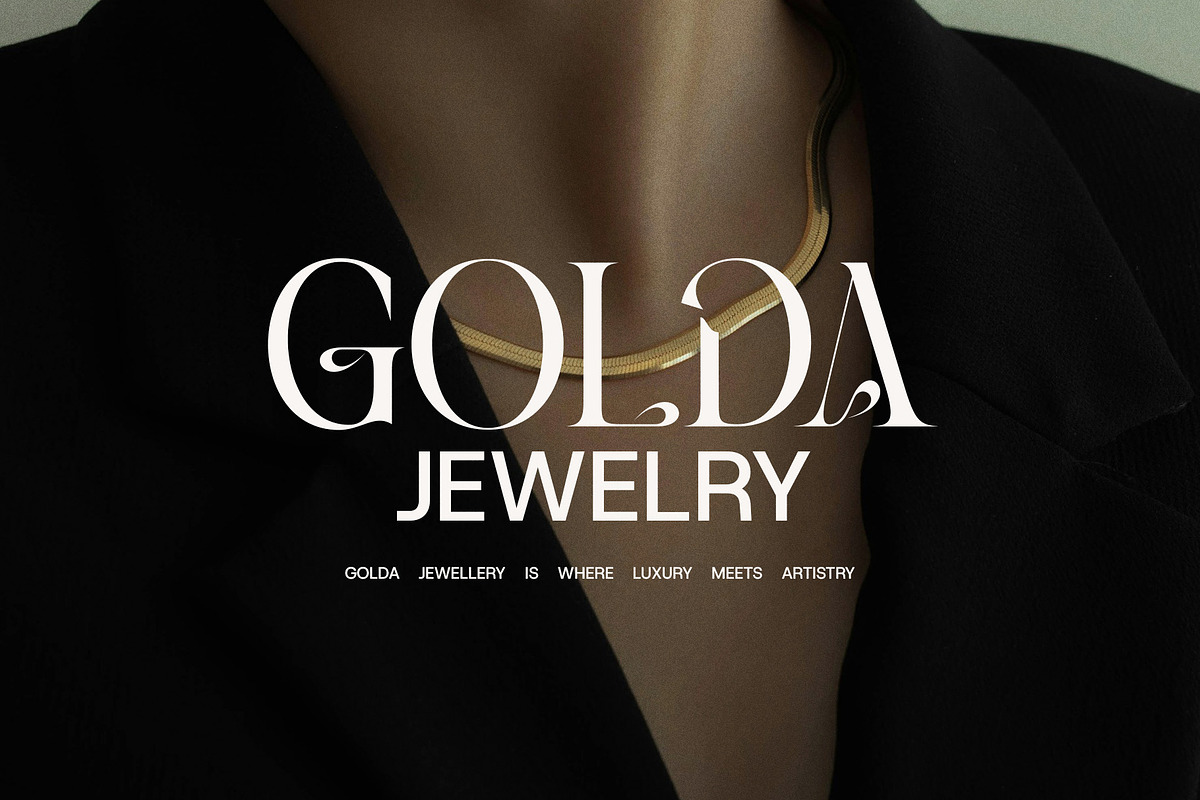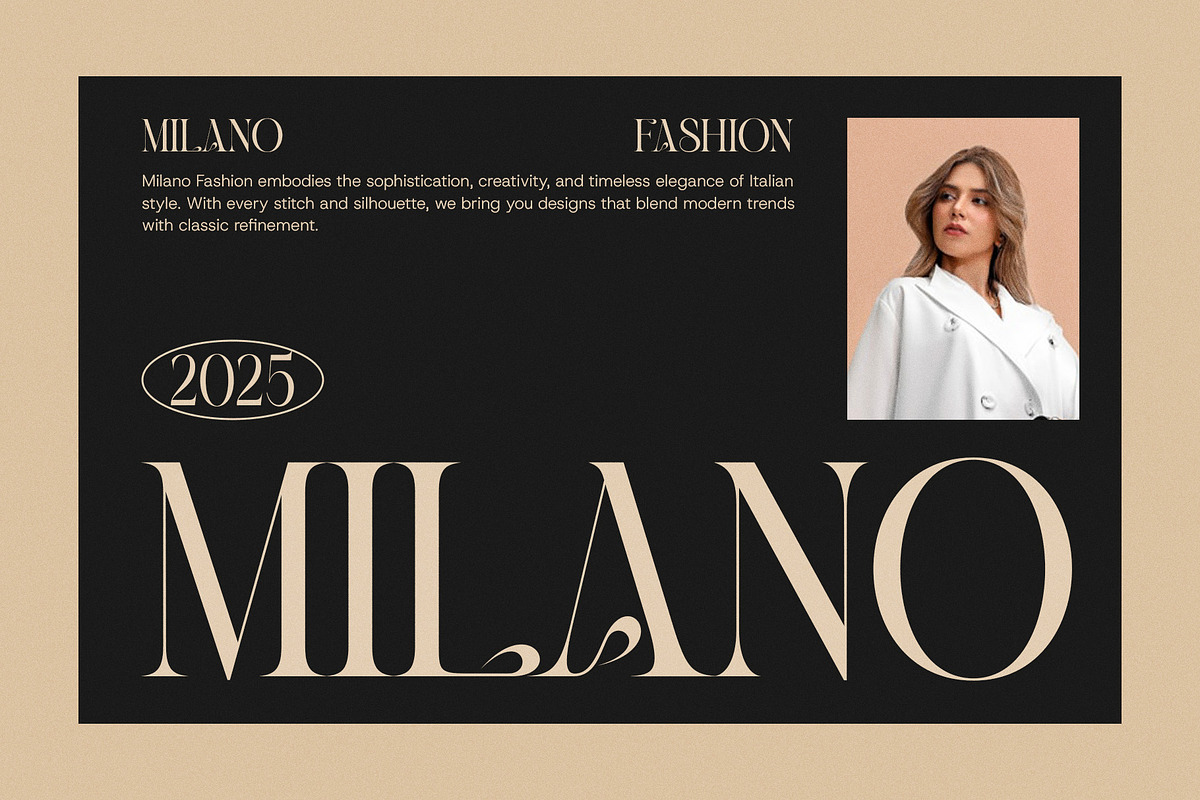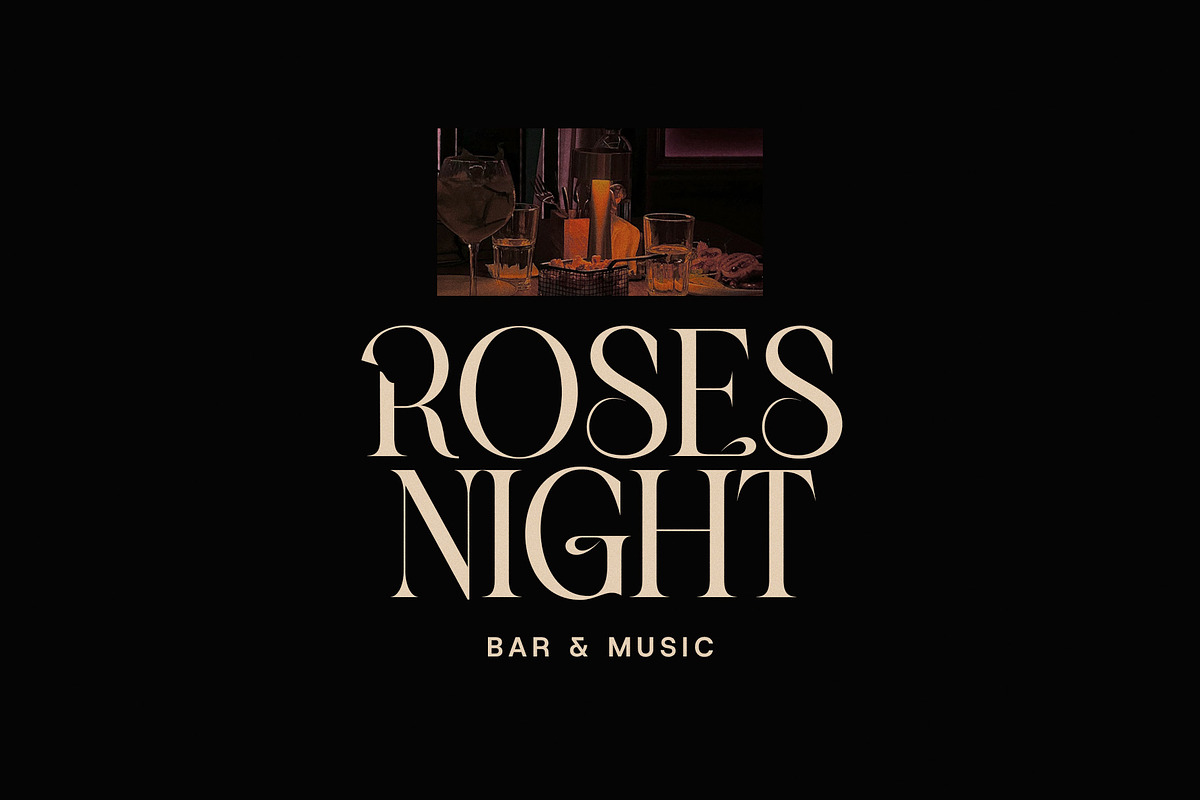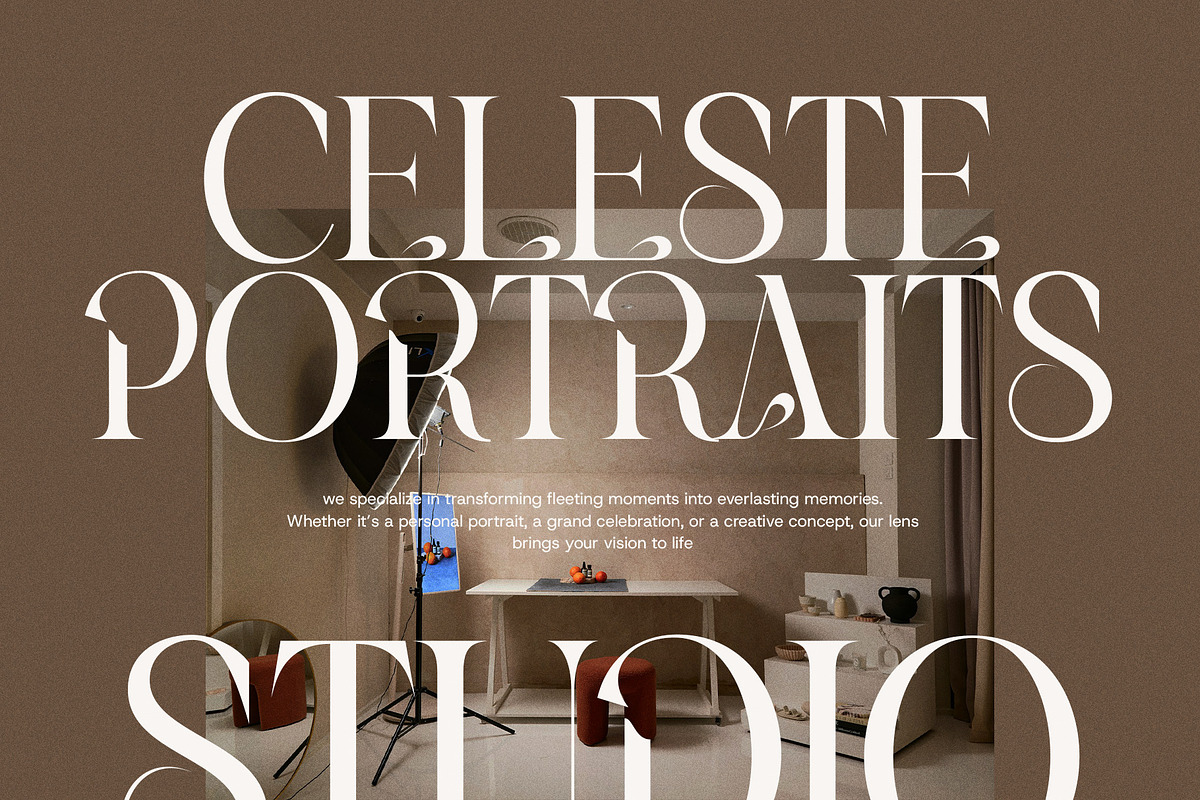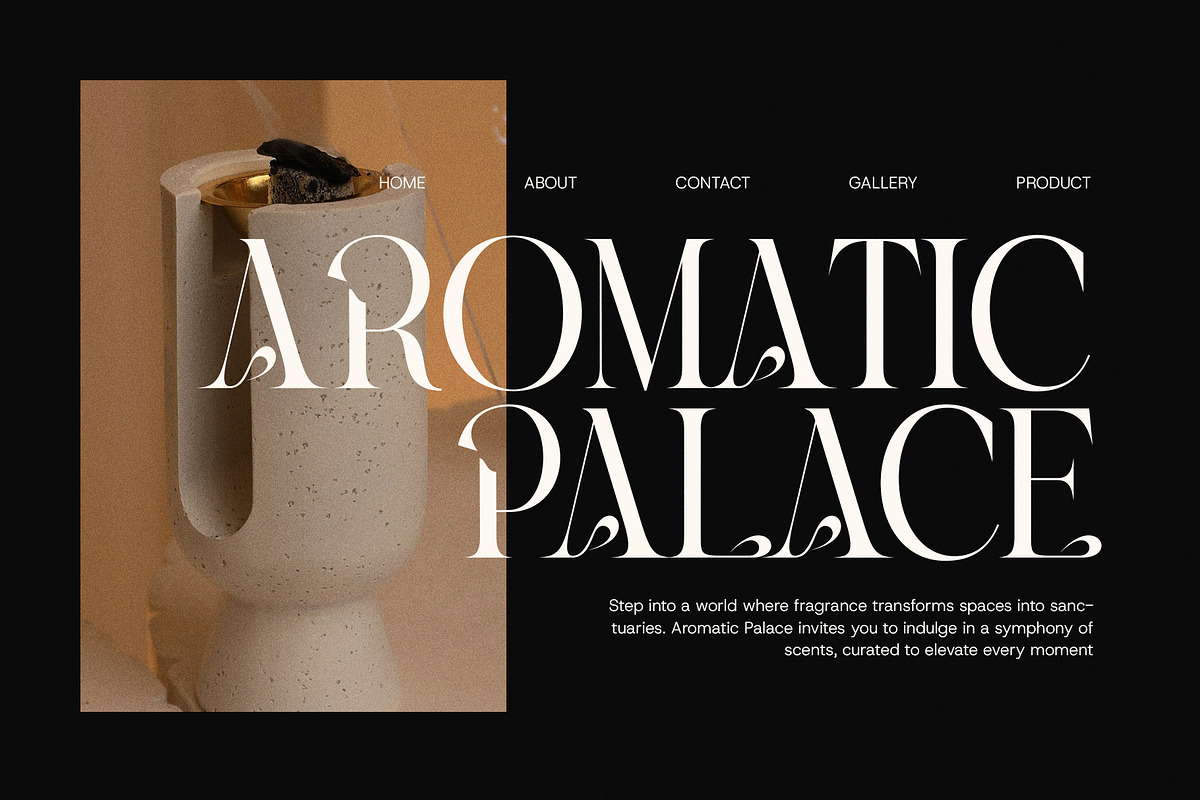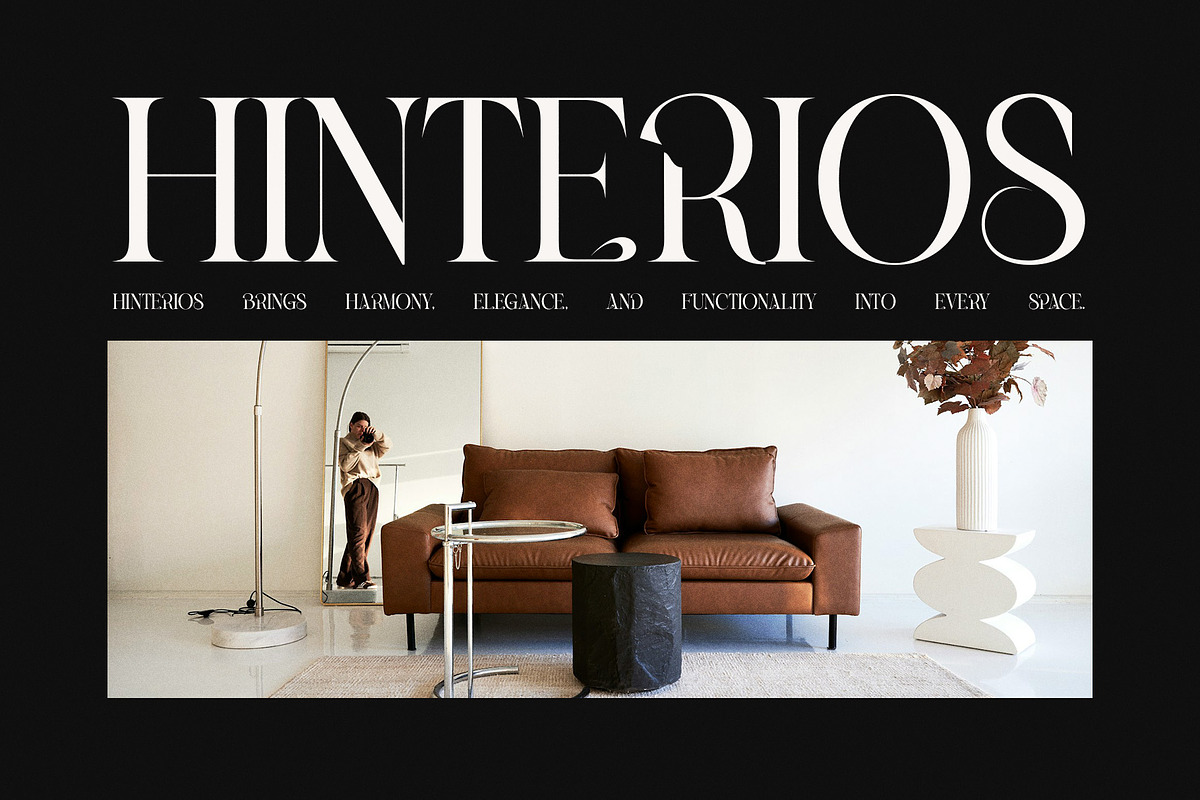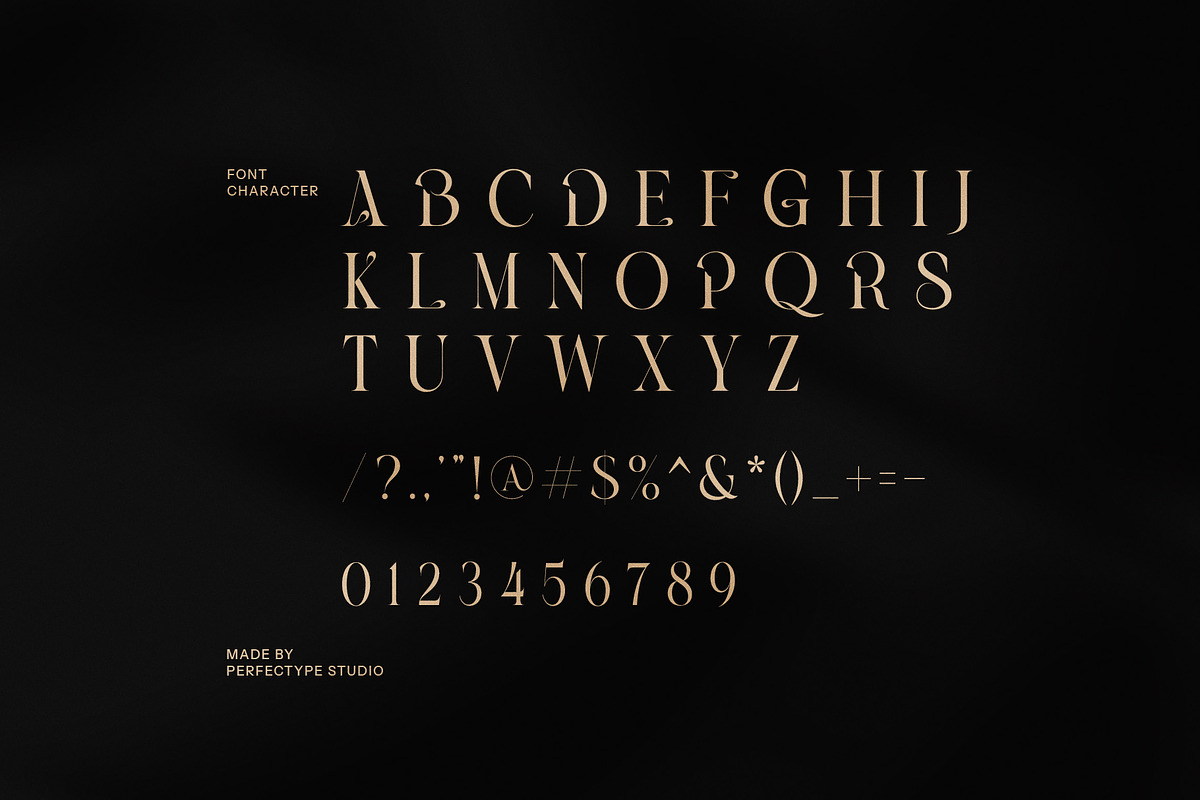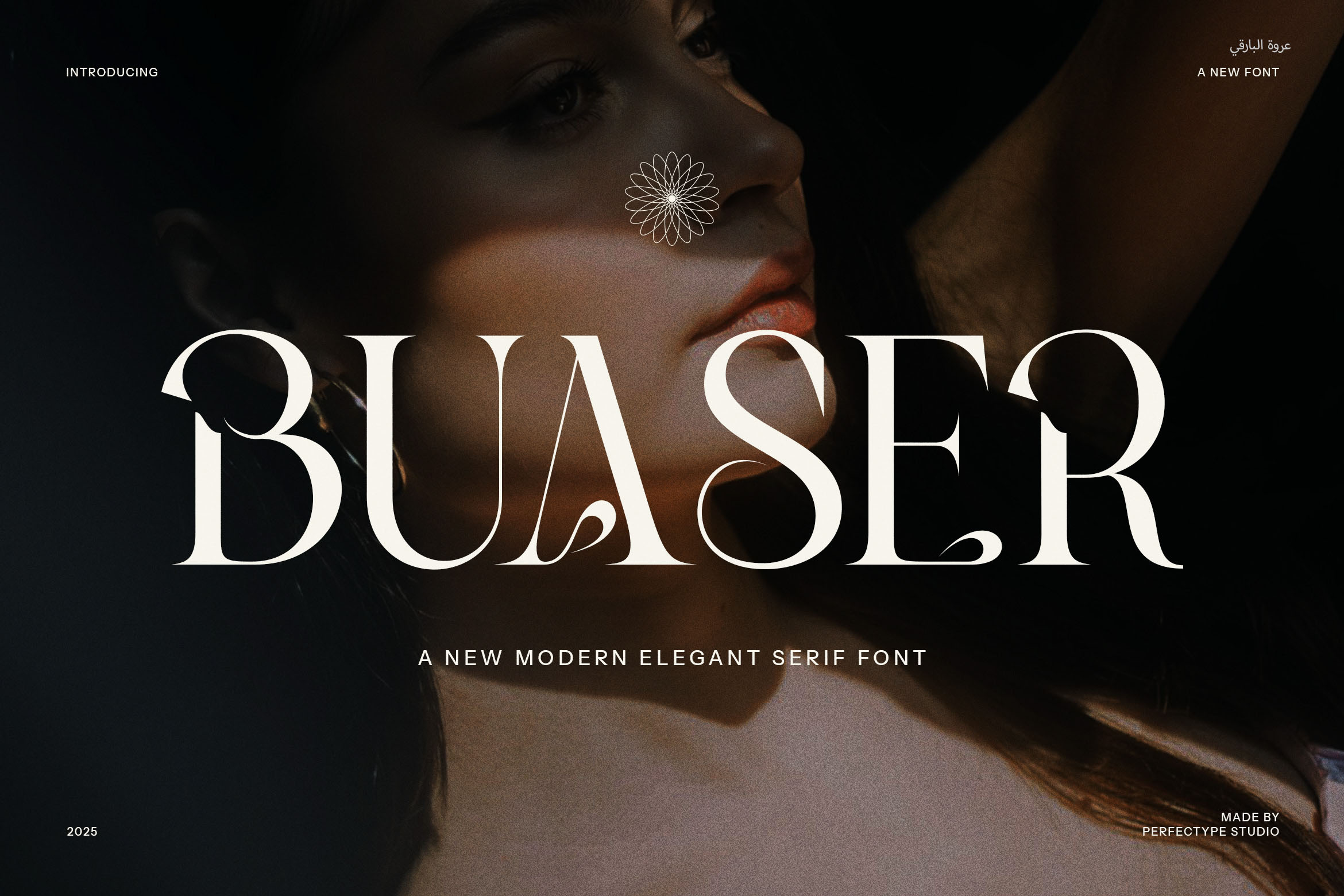
Buaser Stylish Serif Font
Buaser Stylish Serif Font is a contemporary and sophisticated serif typeface designed to add a touch of elegance and charm to any creative project. With its unique blend of classic serifs and modern design elements, Buaser offers an effortlessly stylish look that can elevate your branding, logo designs, and more. The font’s exquisite ligatures and carefully crafted alternate forms add a layer of creativity, making it an ideal choice for designers who seek to create distinctive, high-end typography.
This versatile font is perfect for a wide range of applications, from luxury branding and elegant websites to magazine layouts and premium product packaging. Its refined structure enhances the overall aesthetic of any design, making it especially suitable for industries like fashion, food, boutiques, real estate, and more. Buaser adds a refined, professional touch to advertisements, marketing campaigns, and even special events like invitations and high-end brochures.
Whether used in print or digital formats, Buaser Stylish Serif Font ensures readability while maintaining an upscale, modern feel. Its beautifully crafted ligatures and alternate forms offer designers flexibility, allowing them to customize their typography for a more personalized and unique appearance.
With Buaser, your designs will stand out with elegance and style, capturing attention and leaving a lasting impression. Perfect for those looking for a font that combines modern sophistication with timeless appeal, Buaser Stylish Serif Font is the ultimate choice for enhancing any creative project with flair and refinement.